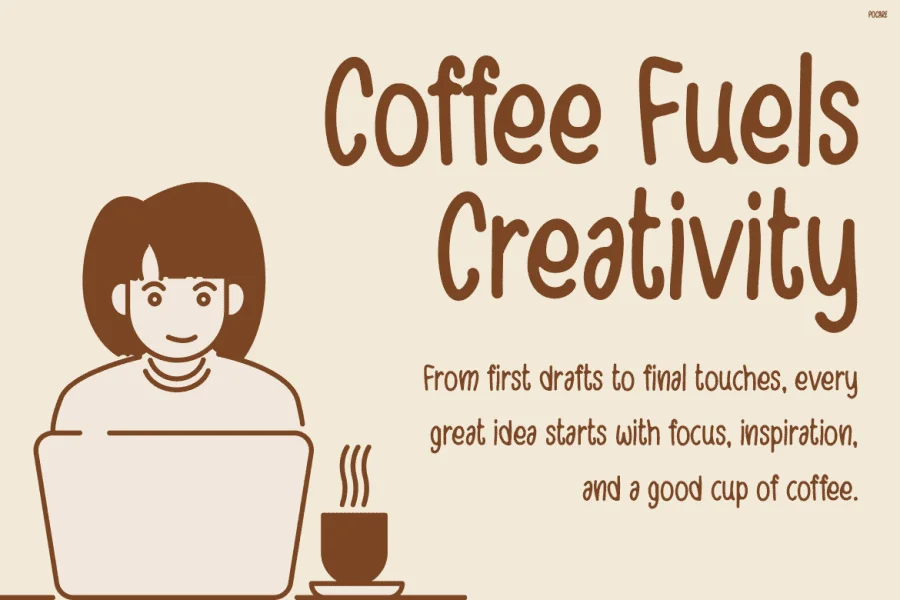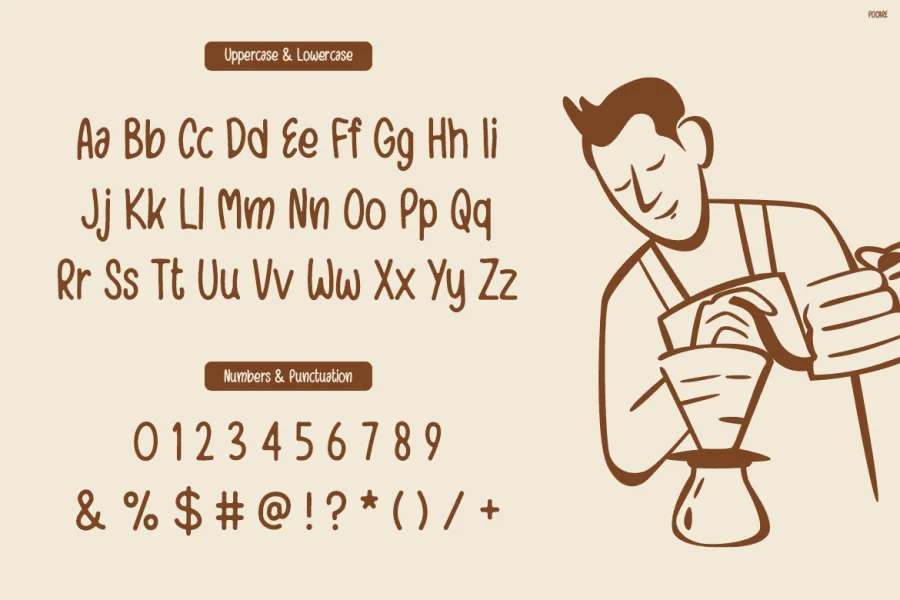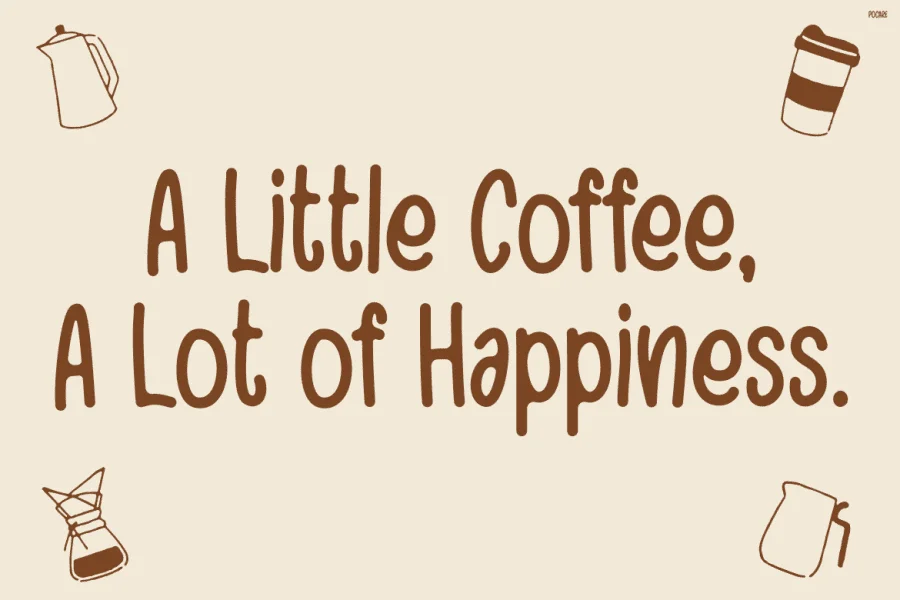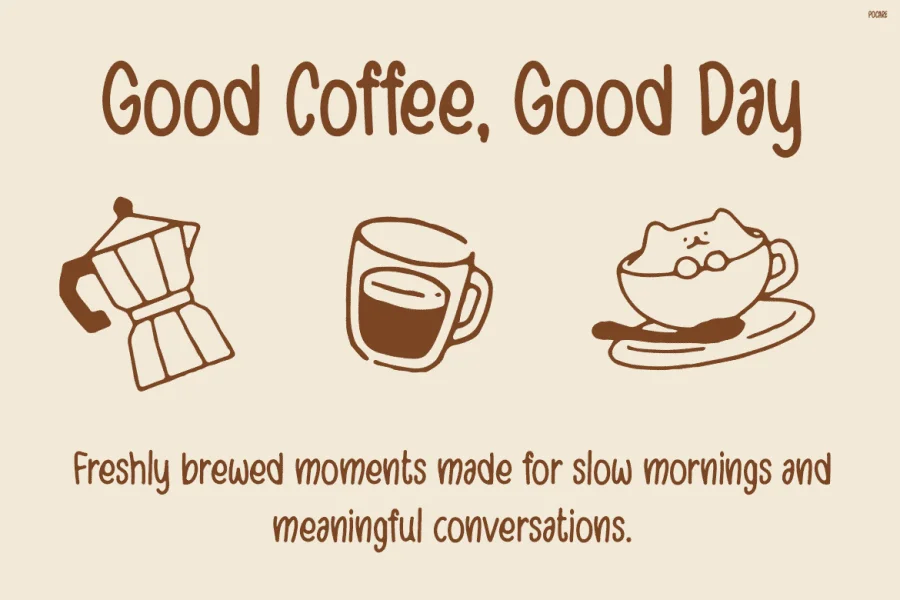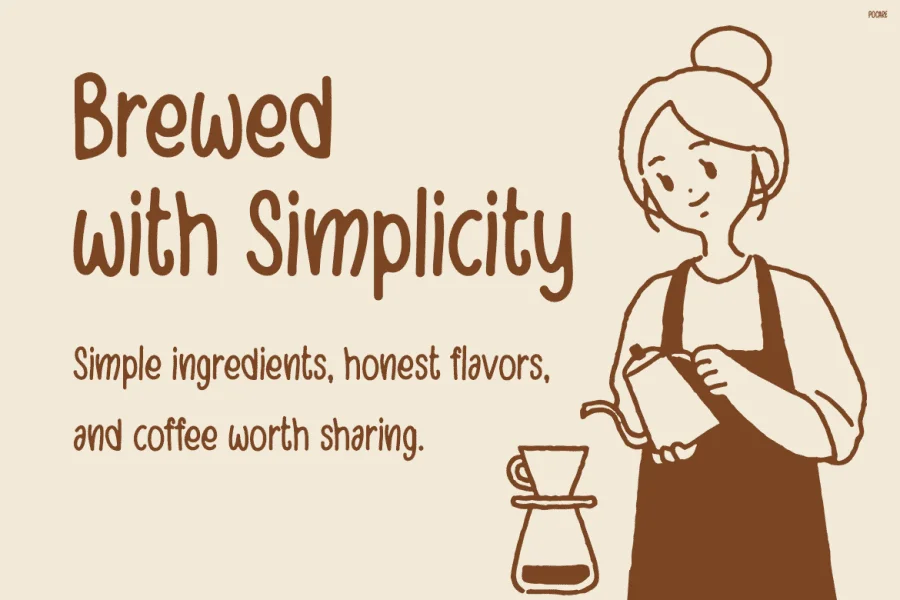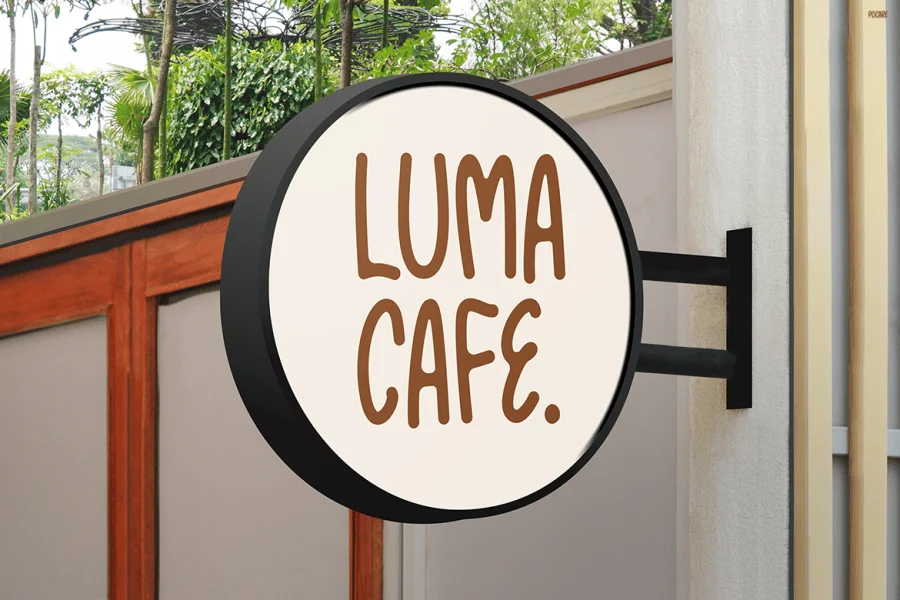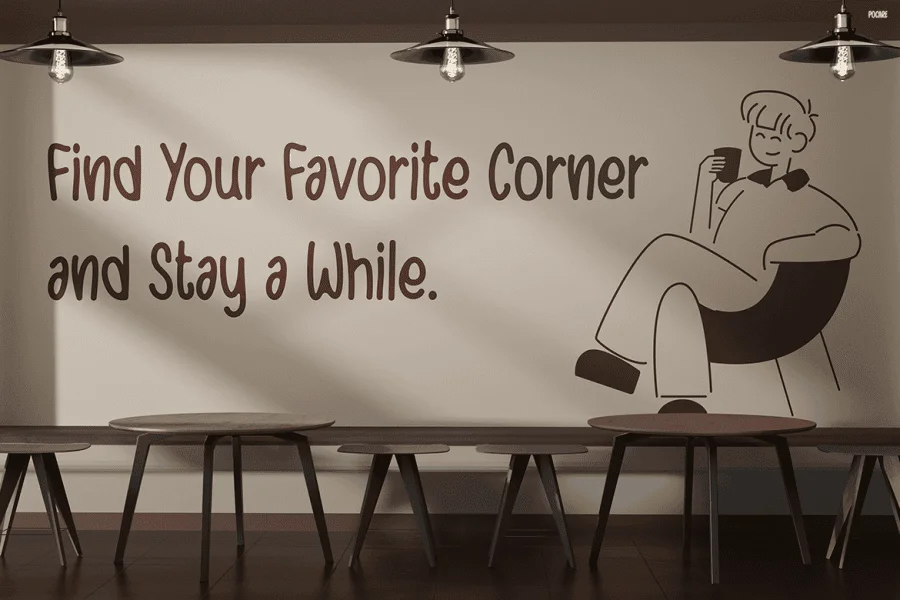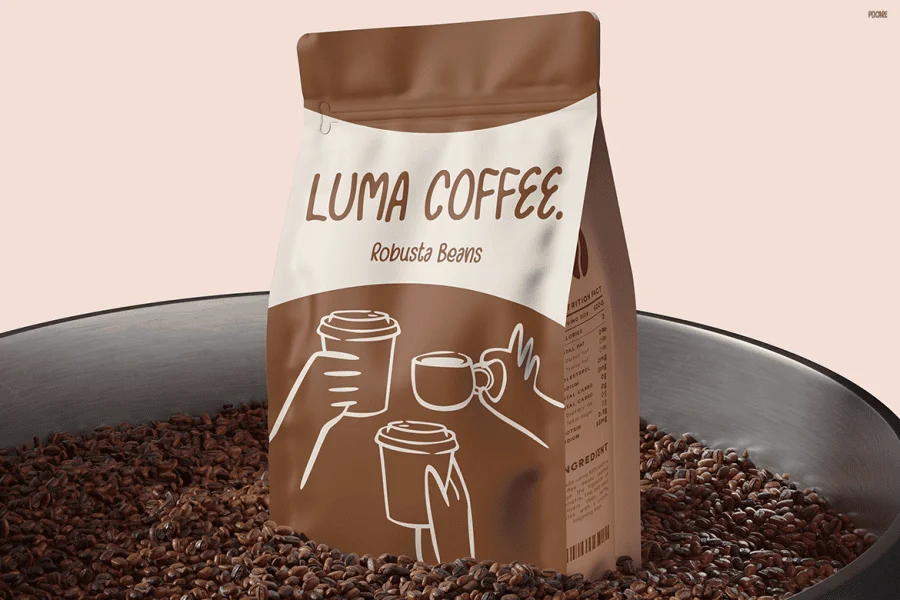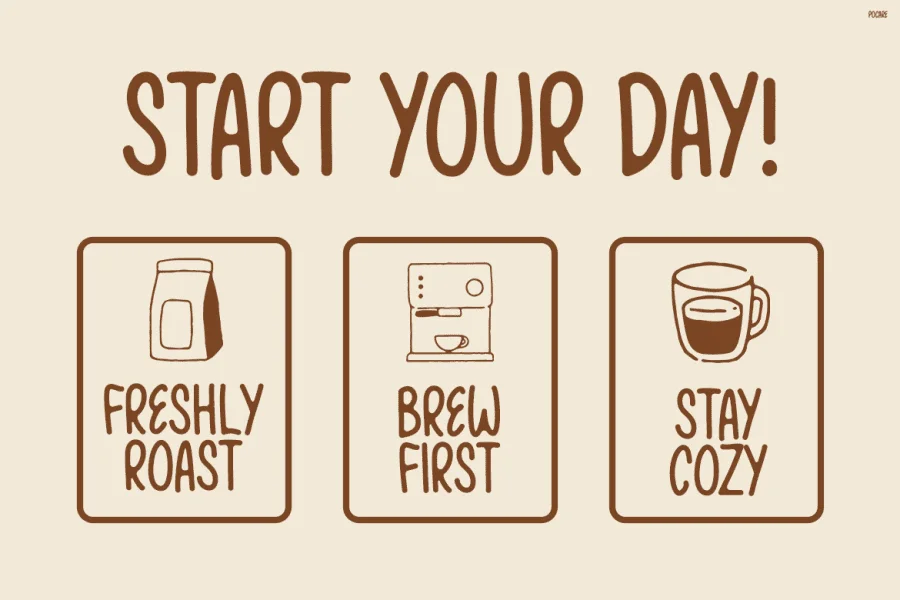
Pocare is a warm, hand-drawn sans-serif typeface defined by its soft, rounded terminals and tall, condensed proportions. Its low-contrast near monoline strokes give the letterforms a gentle and approachable texture. The upright posture is balanced by organic, slightly irregular curves that evoke the casual charm of hand-lettered signage, while maintaining a clear and legible structure across both uppercase and lowercase characters.
This friendly and inviting design makes it exceptionally well-suited for lifestyle branding, artisanal packaging, and cozy café identity systems. Its soft, humanistic qualities shine in display applications such as menu boards, storefront signage, and promotional graphics, where a relaxed, welcoming, and authentic tone is desired.